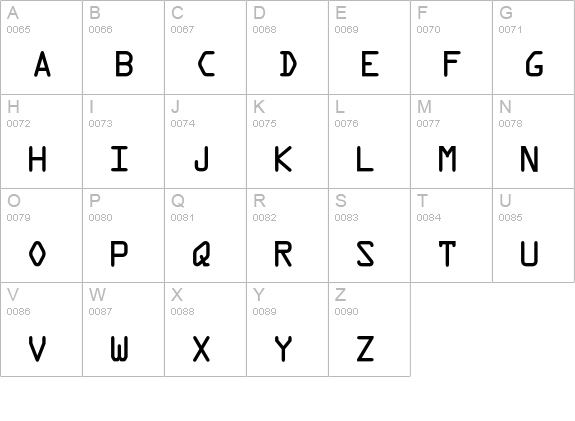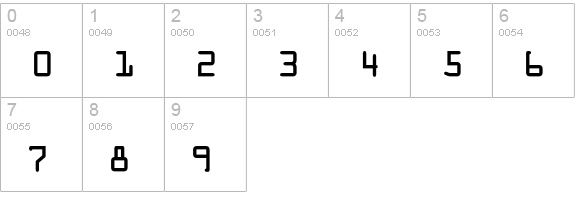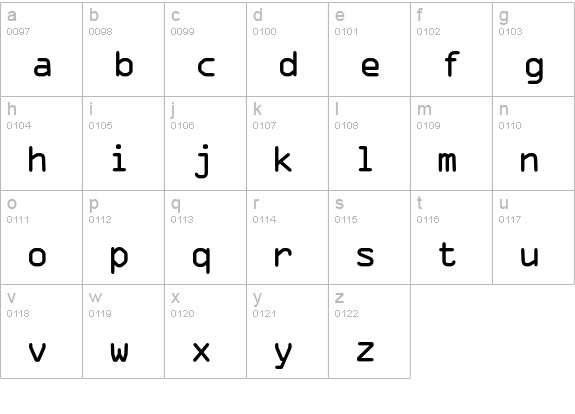
The OCR-A font is a classic, monospaced typeface designed for optimal readability in optical character recognition applications. Its clean and simple design features uniform stroke widths and distinct characters, making it ideal for scanning and machine reading purposes. The OCR-A font is widely recognized for its legibility and efficiency, making it a popular choice for documents such as invoices, bank statements, and barcodes. Best of all, this versatile font is available for free download at FontsMarket.com, allowing users to easily access and utilize it for their projects without any cost. With its timeless appearance and practical functionality, the OCR-A font is a valuable asset for anyone seeking a reliable and easily readable typeface for their OCR needs.